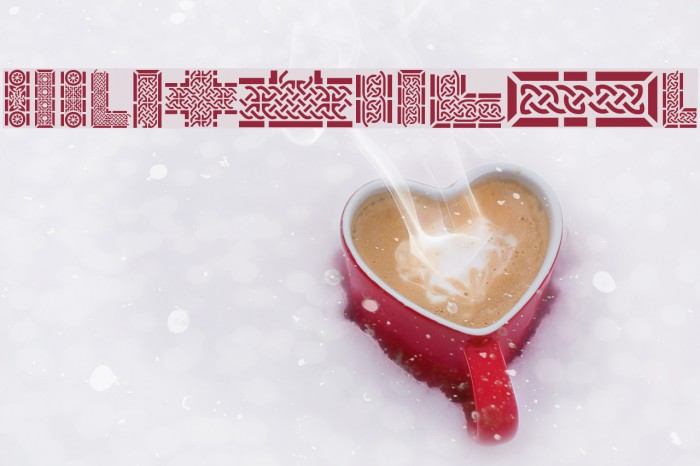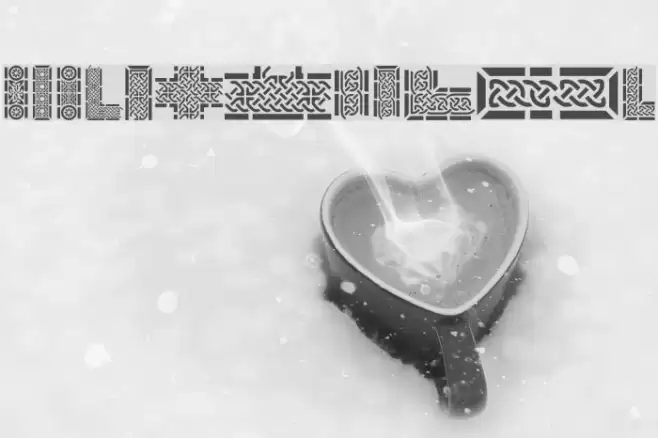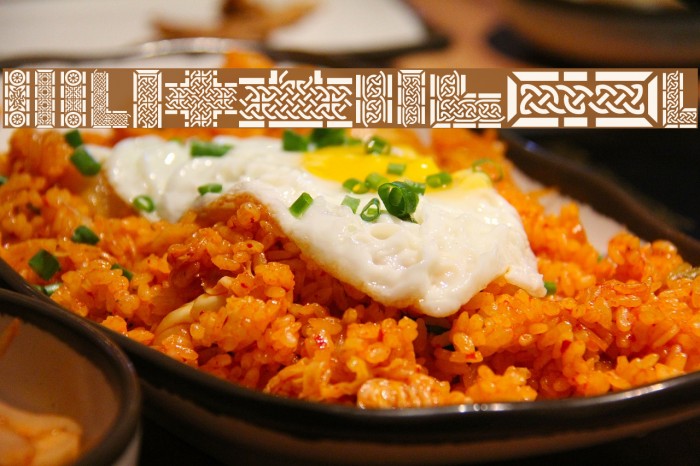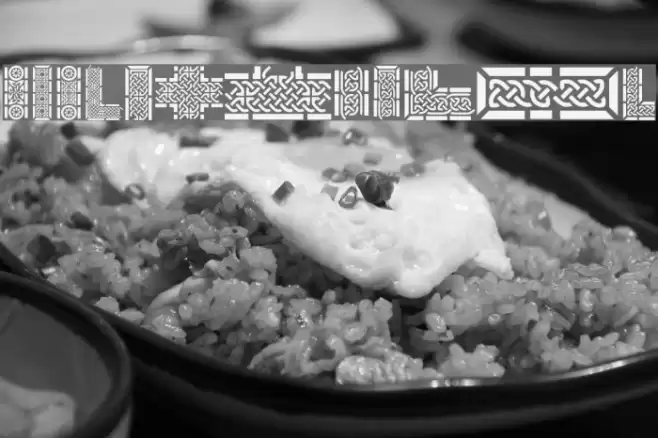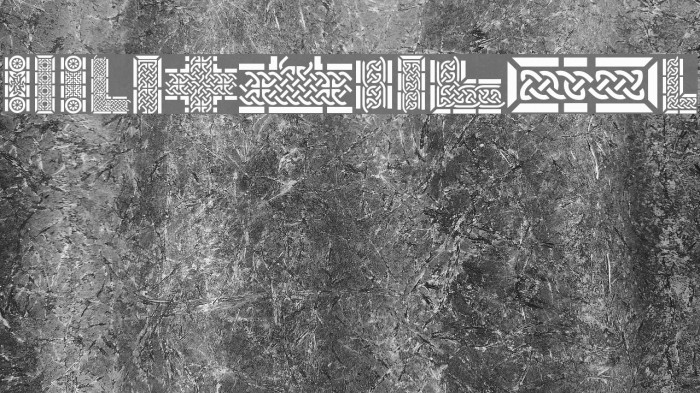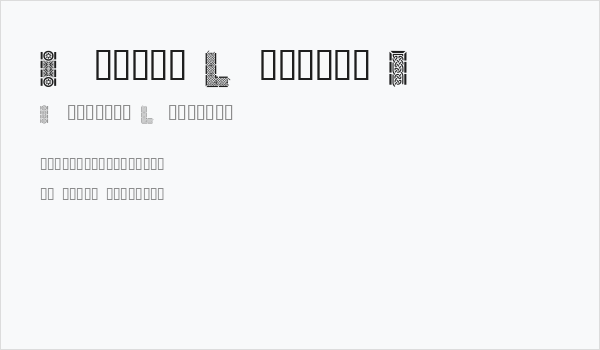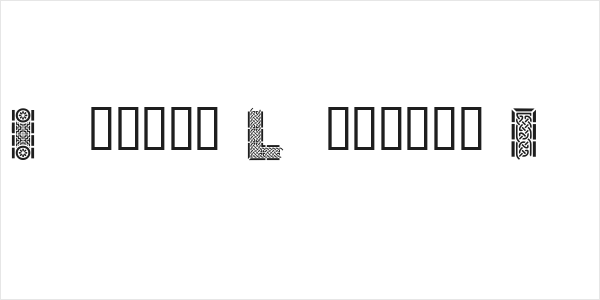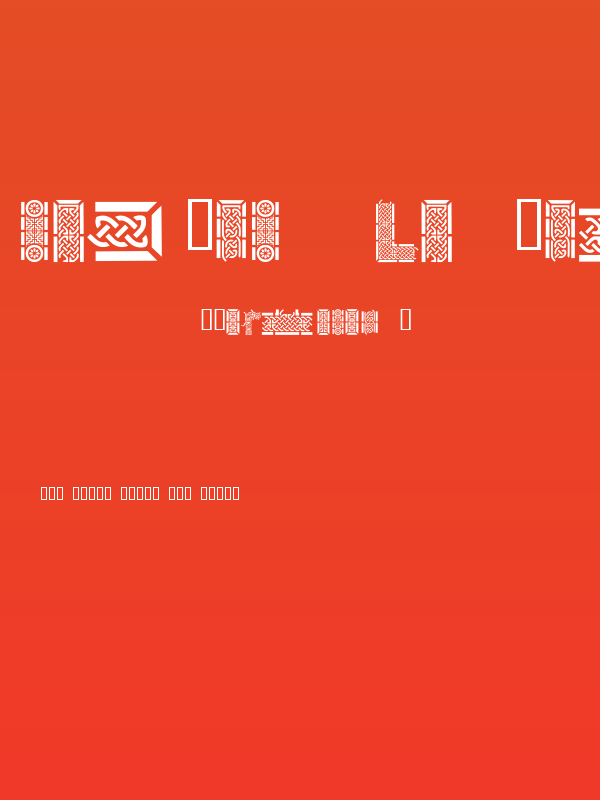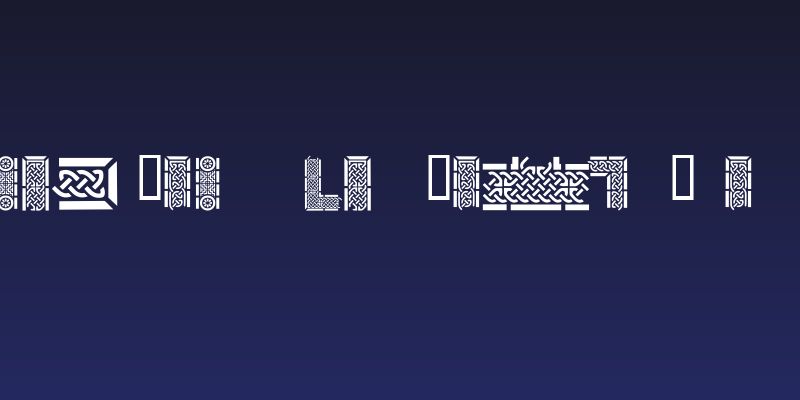
Celtic Designs I Font
Celtic Designs I Description
This font is a decorative typeface inspired by traditional Celtic designs, featuring intricate knotwork and ornamental patterns. The characters are highly stylized, with each letter incorporating unique elements reminiscent of ancient Celtic art. The uppercase letters are particularly elaborate, with some incorporating animal motifs and complex interwoven lines. The overall aesthetic is bold and eye-catching, making it suitable for projects that require a touch of historical or cultural flair. The font's detailed design may not be ideal for small text but excels in larger formats where its intricate details can be appreciated.
Proposed ProjectsIdeal for use in themed event invitations, historical or cultural publications, and decorative signage.